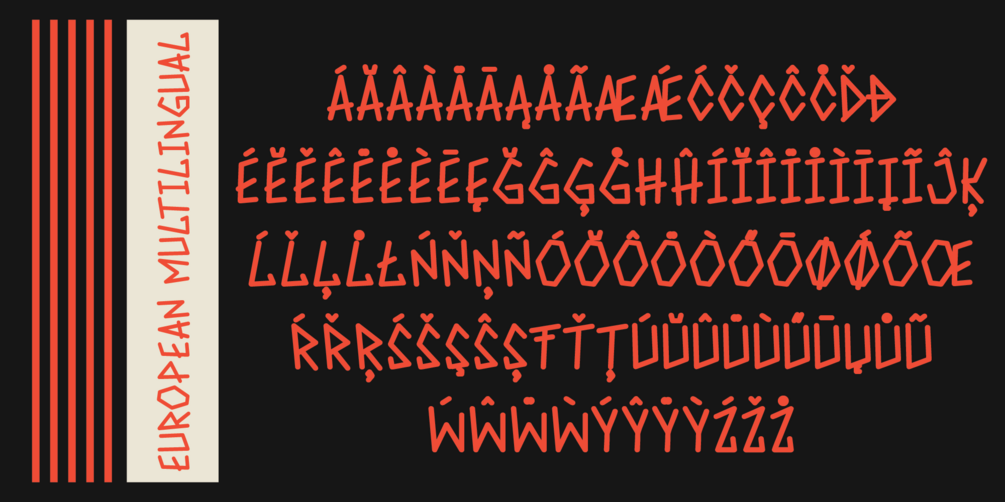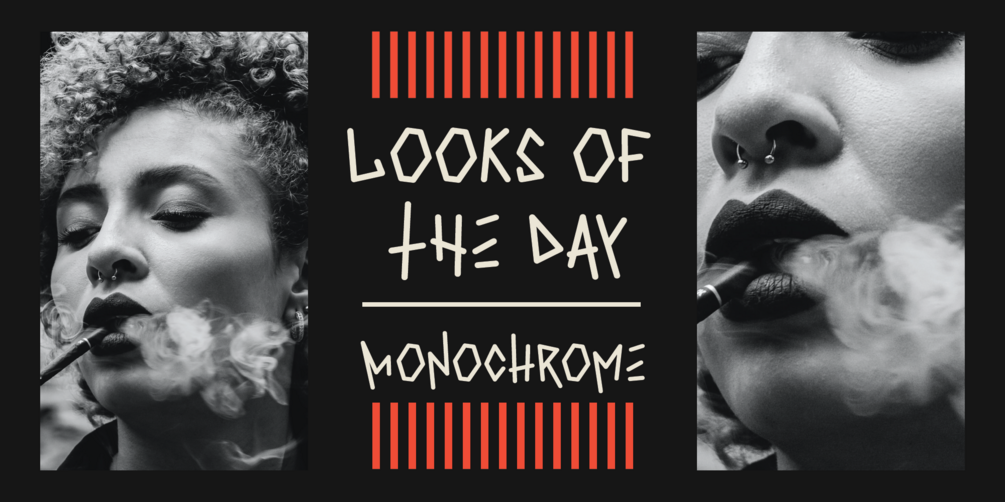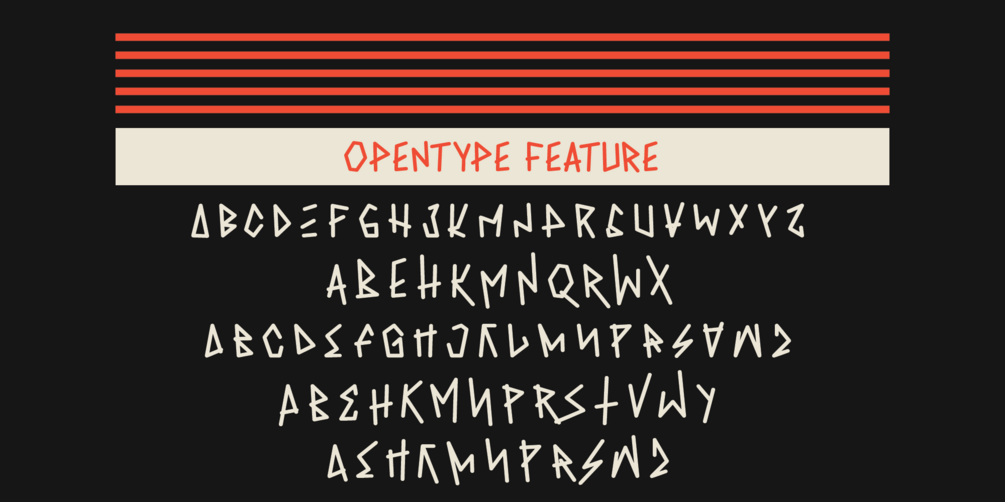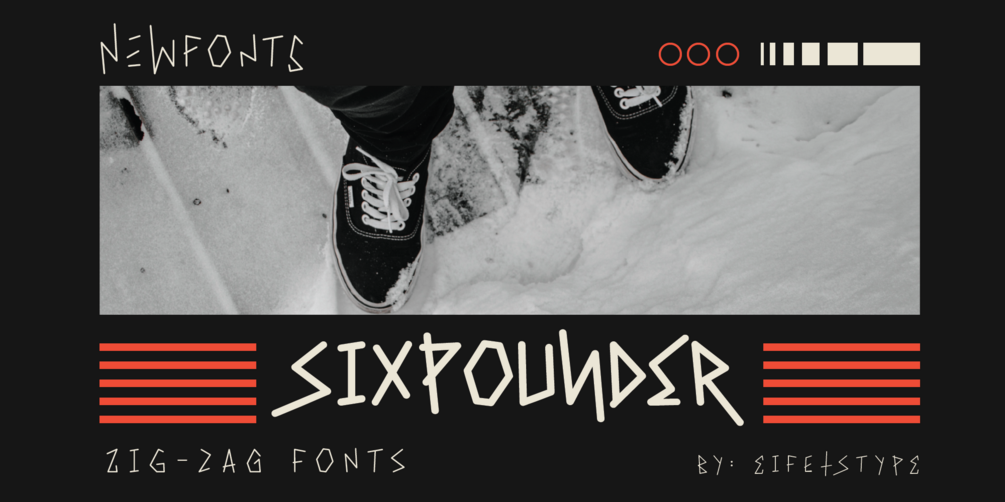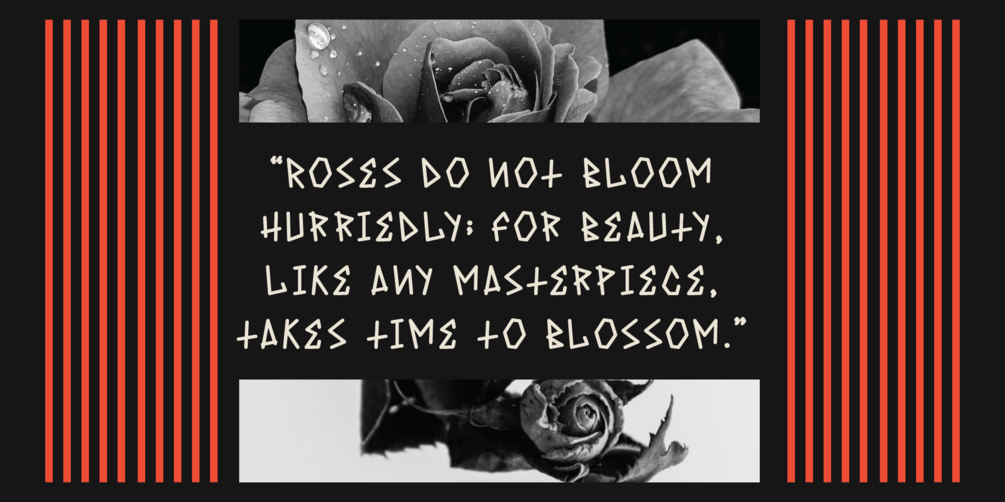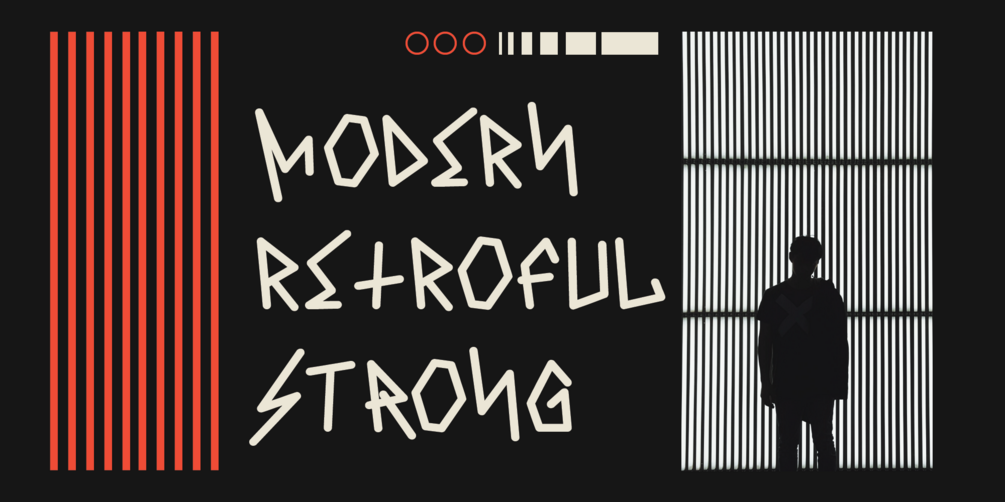
Sixpounder - Zigzag Fonts
Introducing, Sixpounder Fonts.
inspired by indonesian Tribes, Tatto and Poster band.
easy to read, easy access to opentype.
• Uppercase
• Lowercase
• Numerals
• Symbols
• European Multilingual
• Stylistic Set 1
• Stylistic Set 2
• Stylistic Set 3
• Stylistic Set 4